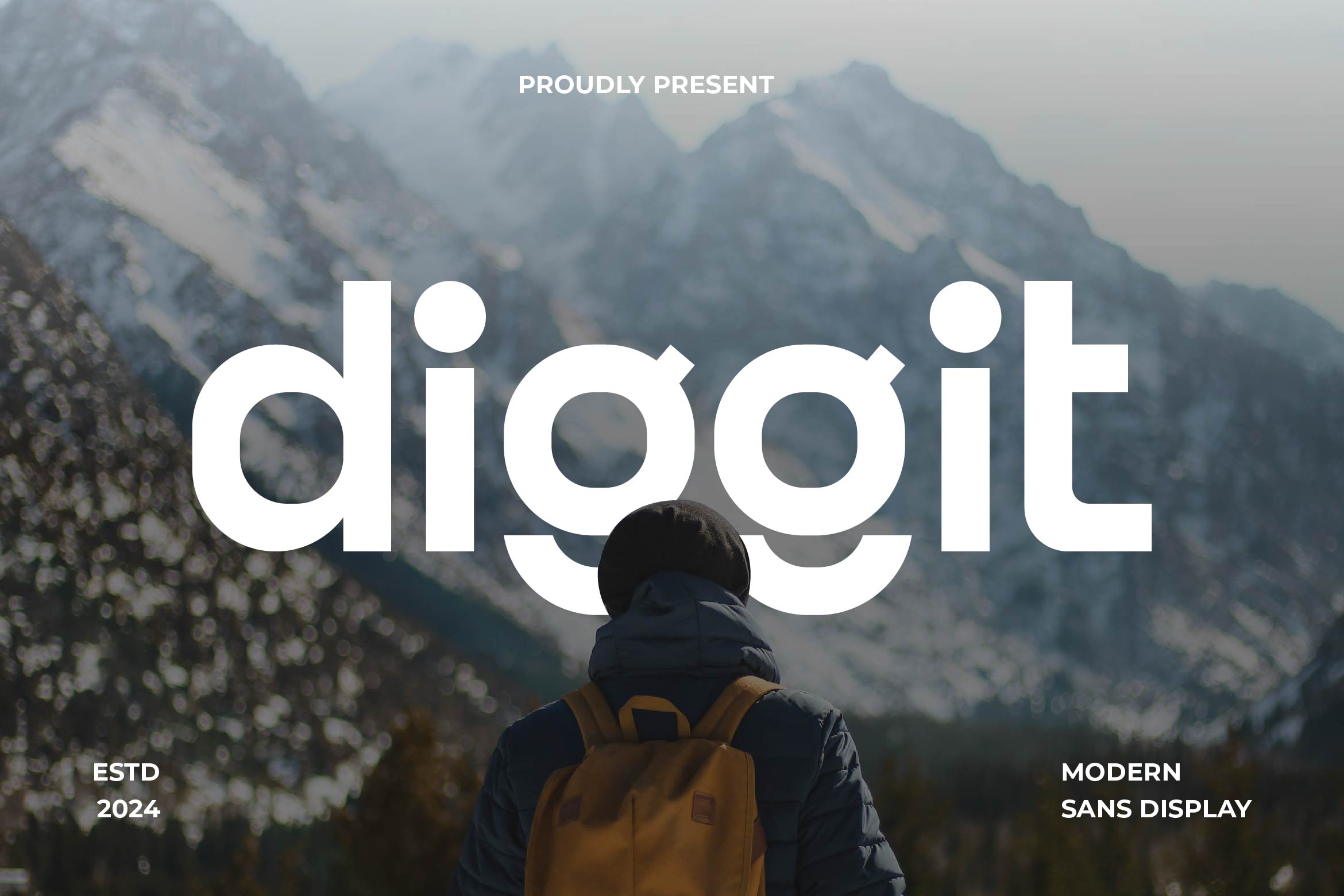
Diggit is a sharp and versatile sans serif font designed for modern visual communication. With its clean lines, minimalistic style, and balanced proportions, Diggit delivers clarity and professionalism across all media — from branding and editorial design to web interfaces, packaging, and social media content.
Its contemporary aesthetic and smooth legibility make it ideal for both bold headlines and subtle body text. Diggit’s sleek design fits perfectly in creative industries, startups, fashion labels, and tech-forward brands.
The font includes uppercase and lowercase letters, numerals, punctuation, multilingual support, and stylistic alternates to expand your design possibilities.
Add clarity and modern edge to your typography with Diggit — the sans serif font that’s built for clean expression and timeless versatility.